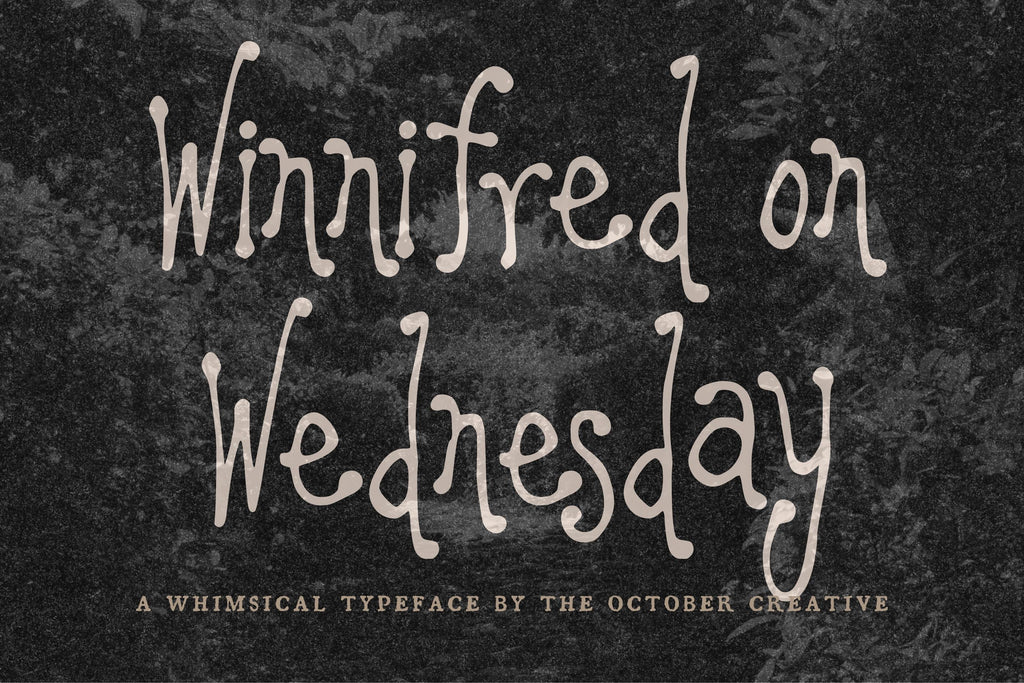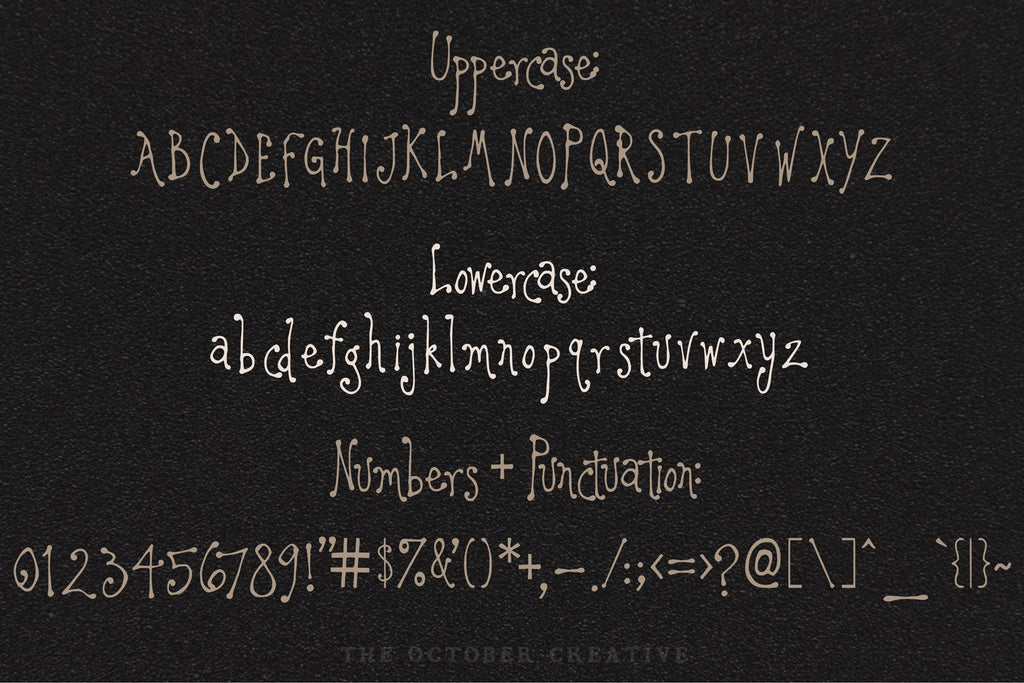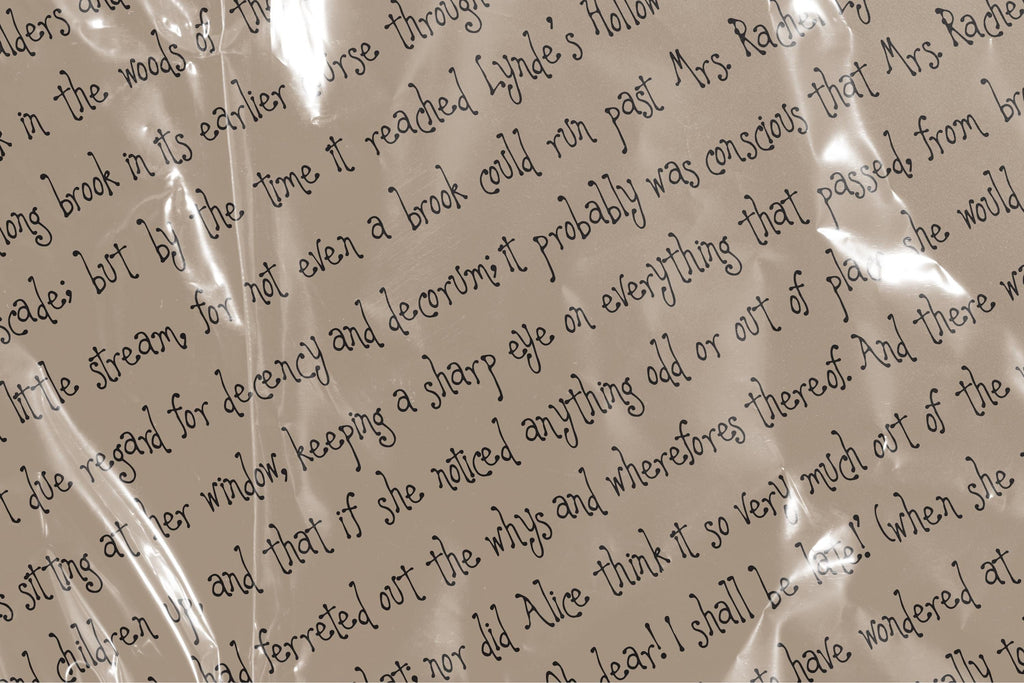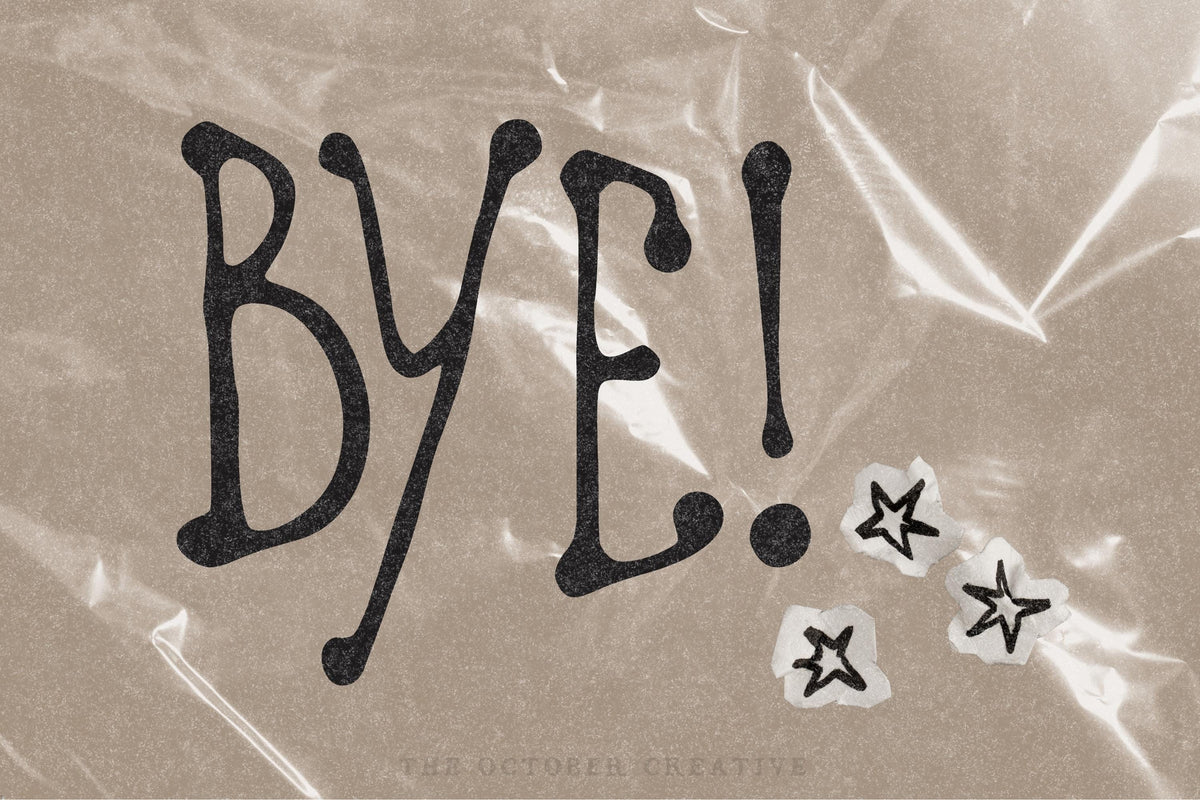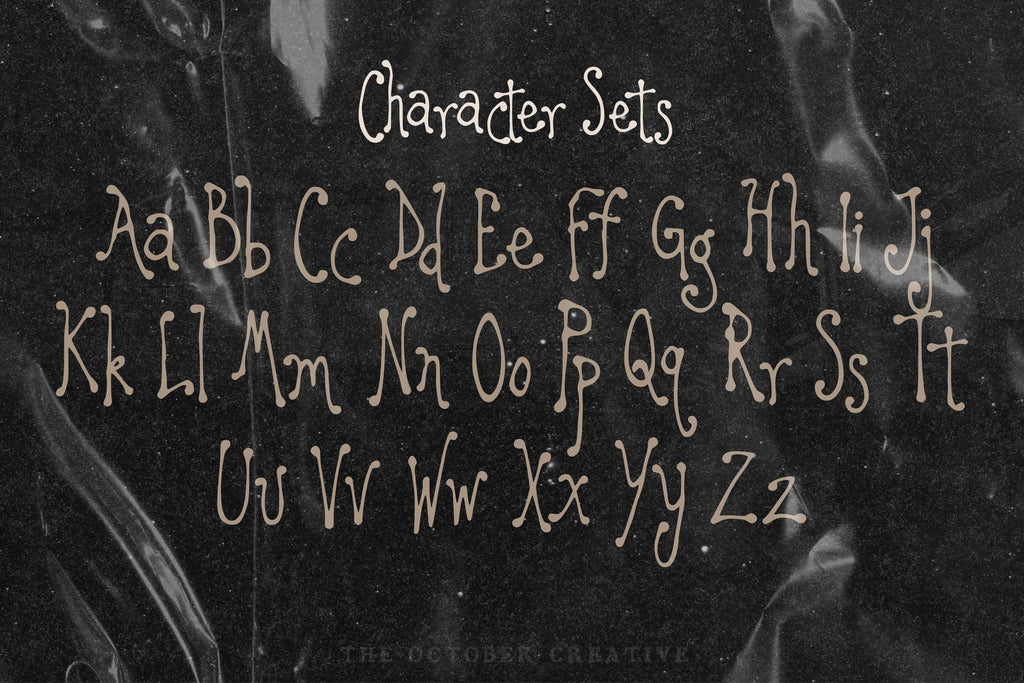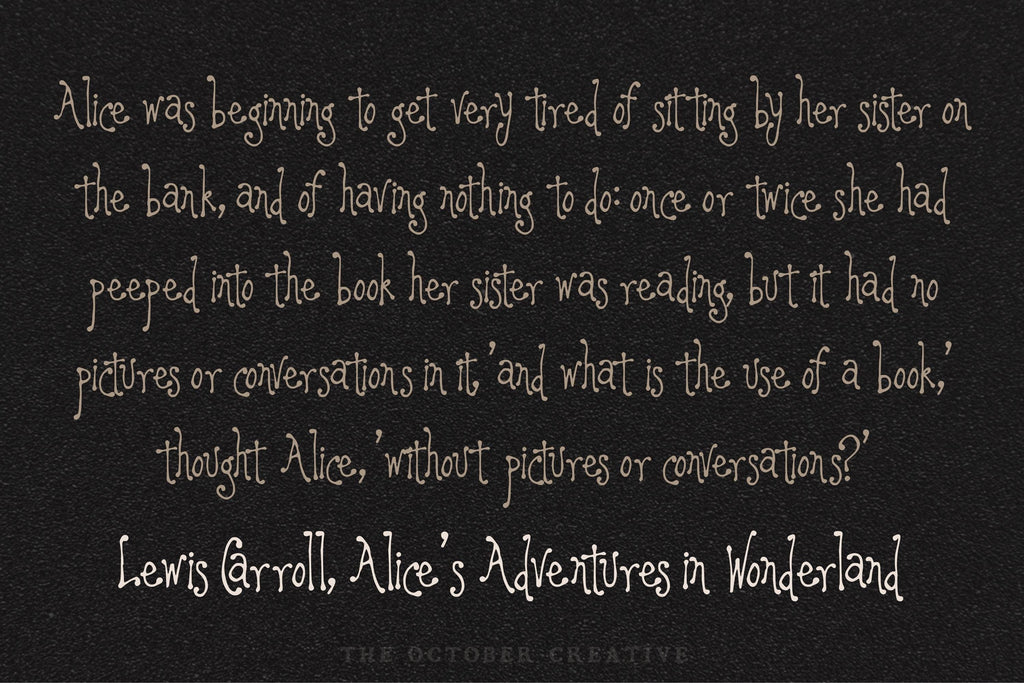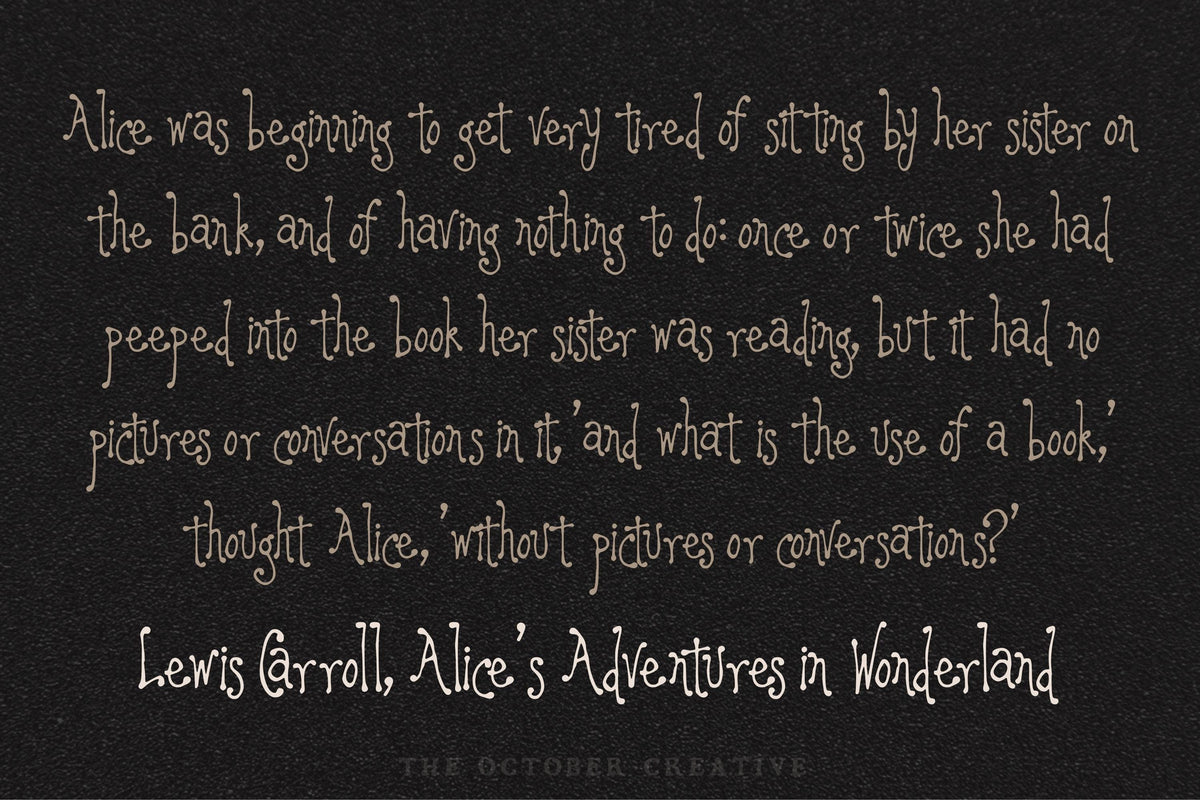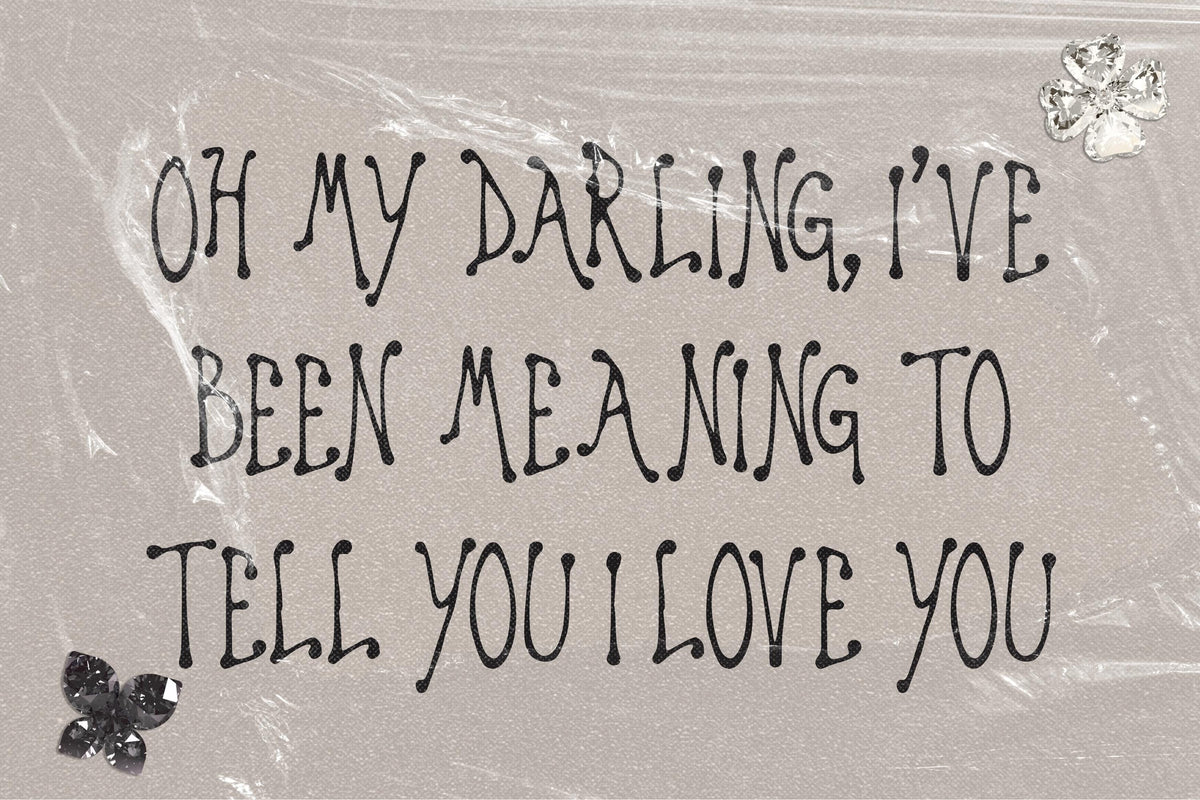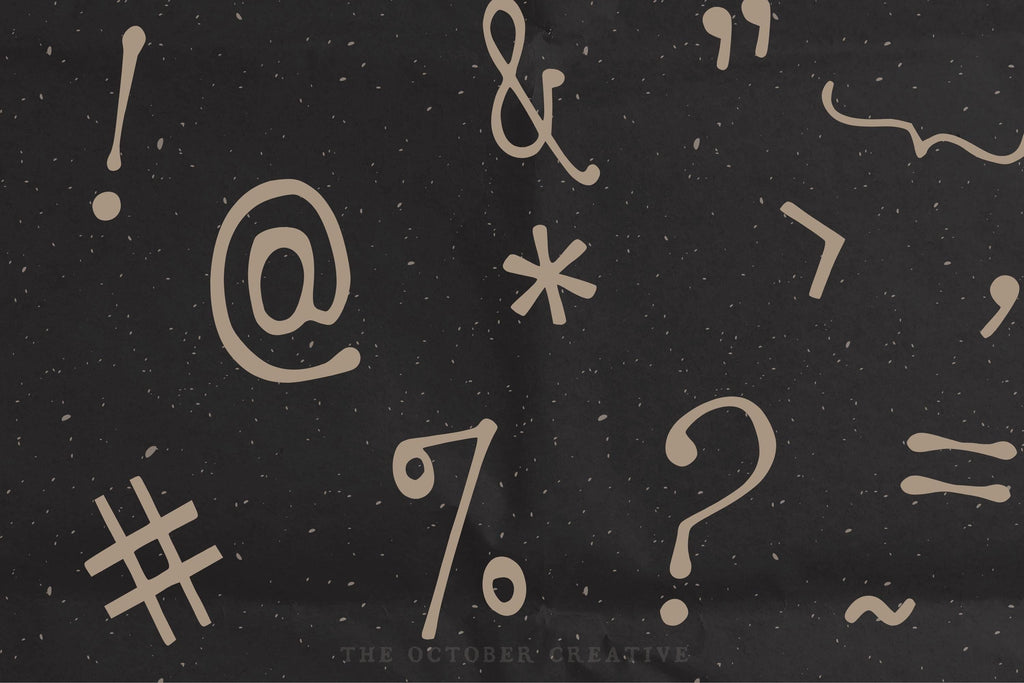
Winnifred on Wednesday Font
Winnifred on Wednesday brings small curls and a gentle bounce to recipe cards, kitchen prints, and cheerful notes. It gives familiar words a personal, playful touch, whether you're writing out a favorite cake recipe or labeling the biscuit tin.